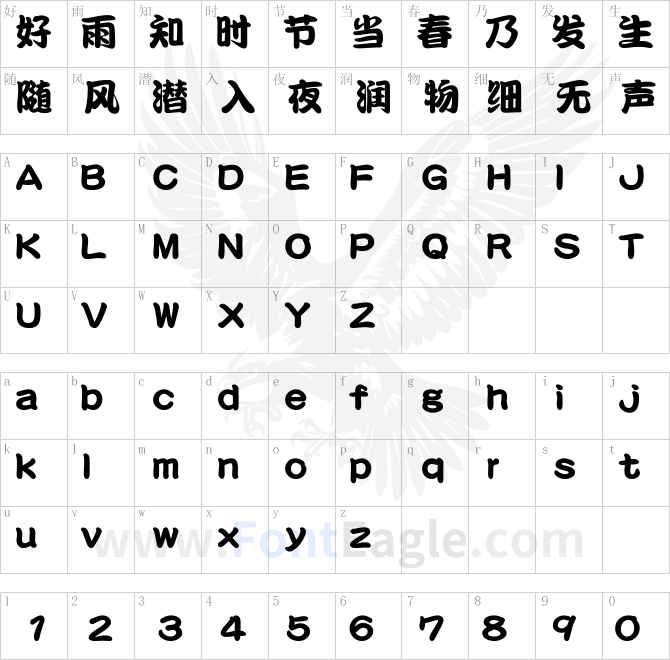
DFPKanTingLiuW9-GB is a great font, widely used in graphic design, single-page menu design, poster design and other fields, and is deeply loved by designers.DFPKanTingLiuW9-GB download.